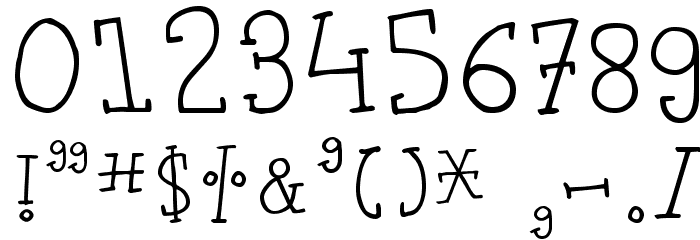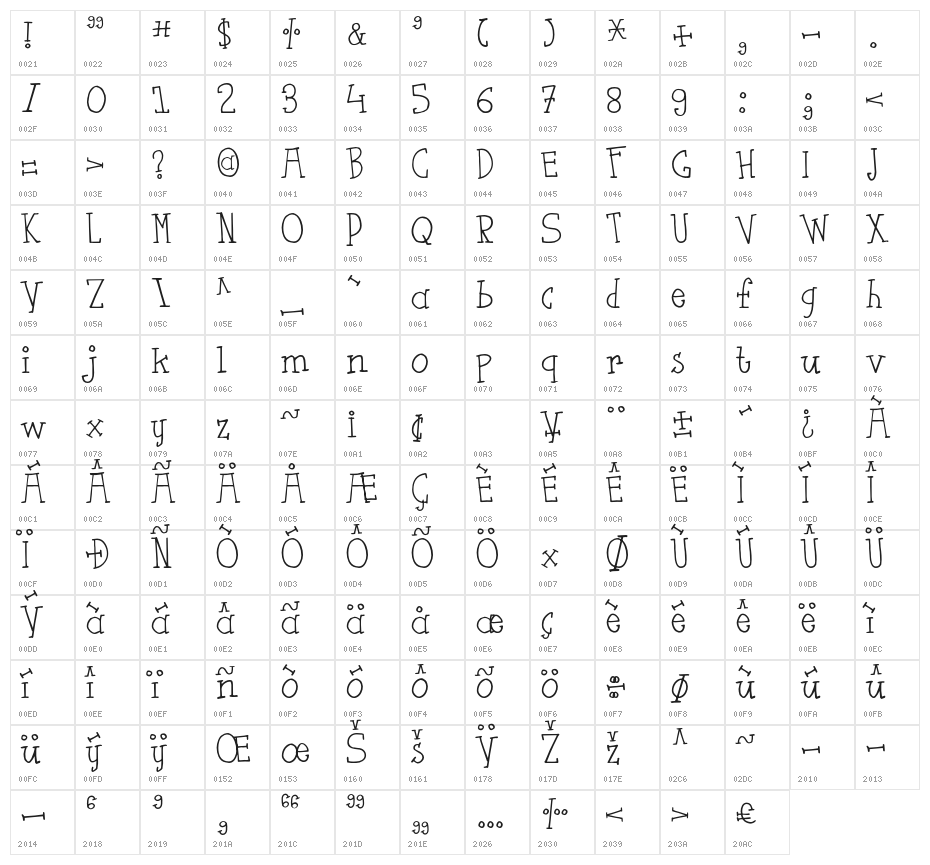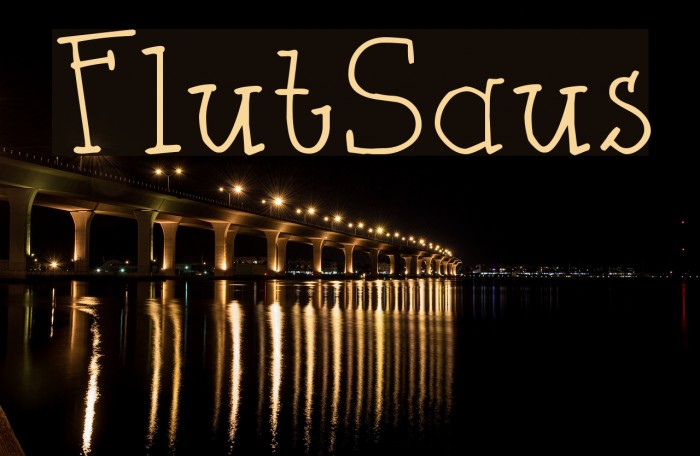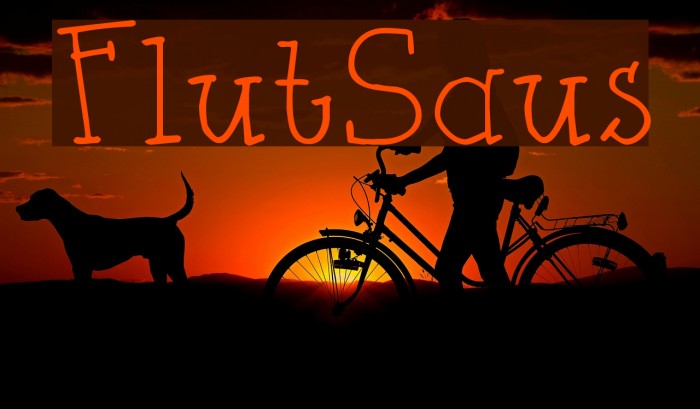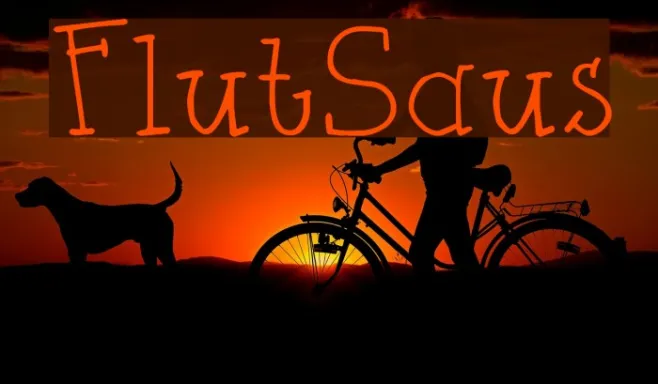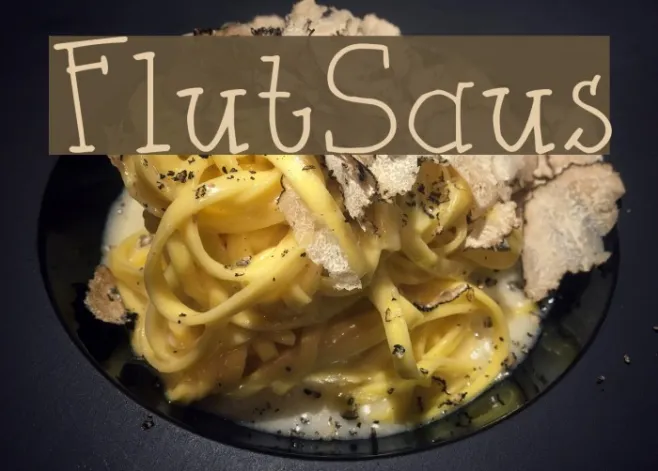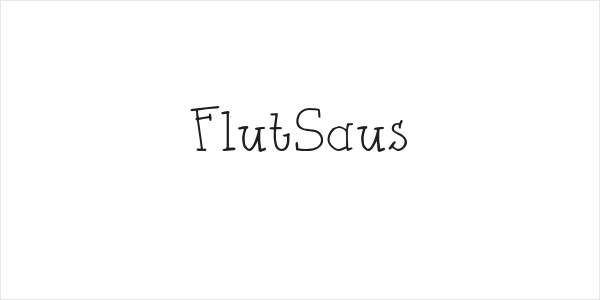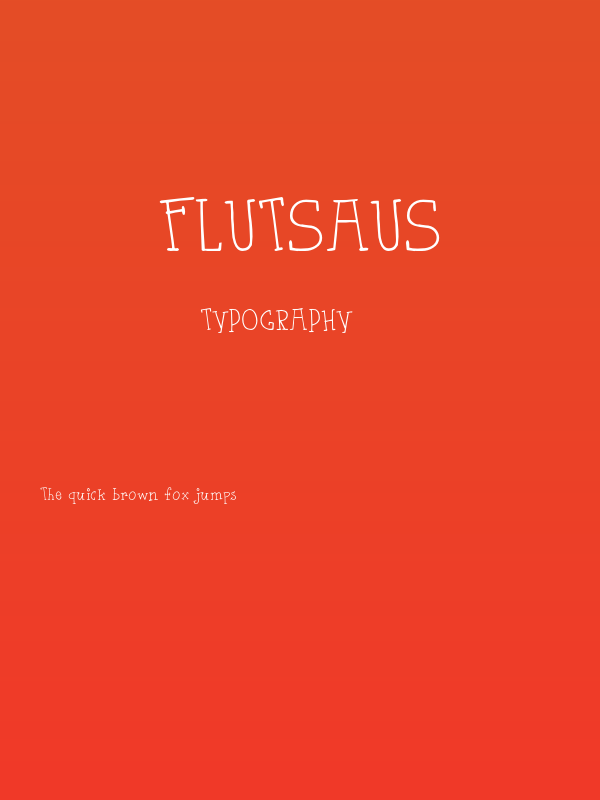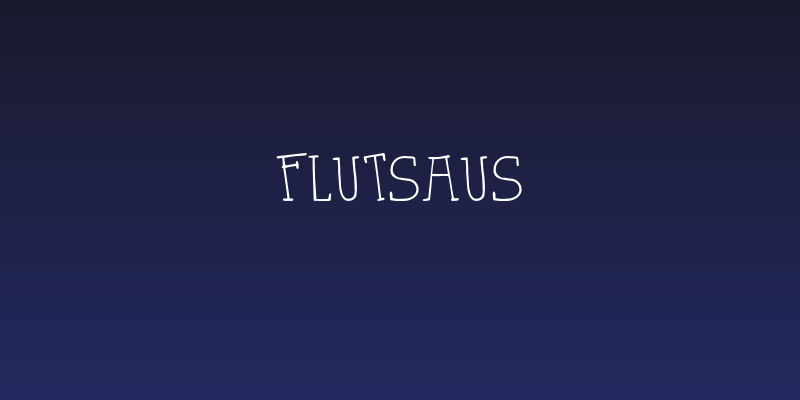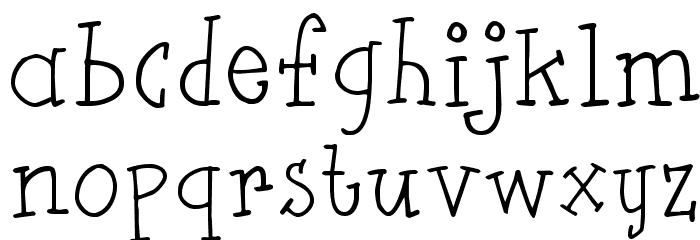
FlutSaus Font
FlutSaus Description
This font exudes a playful and whimsical character, with its irregular and slightly tilted letterforms. The strokes are uneven, giving it a hand-drawn appearance that adds a personal touch. The uppercase letters are tall and narrow, while the lowercase letters maintain a consistent height with rounded edges. Numbers and special characters follow the same quirky style, making them stand out. The overall design is casual and friendly, perfect for projects that require a touch of creativity and informality.